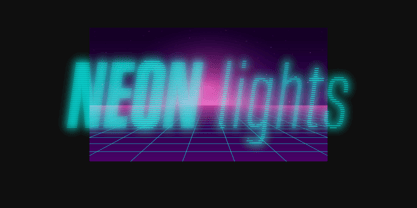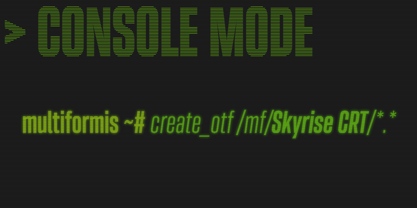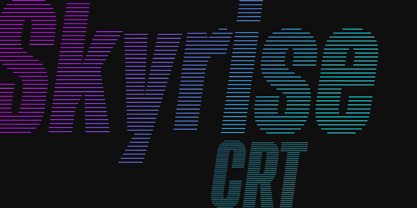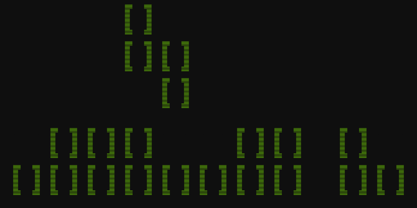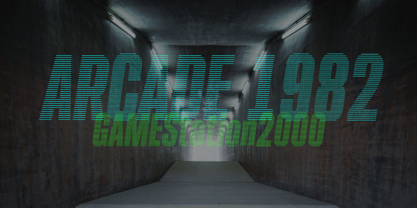
Skyrise CRT
La famille de polices Skyrise CRT a été conçue par Pedro Madeira et publiée par Multiformis. Skyrise CRT contient 16 styles et options de package familial. En savoir plus sur cette famille
Skyrise CRT was designed to be a retro-looking display family based on early CRT screens, which presented images and text with a scan-line pattern. The original Skyrise family was chosen as the base for its squarish and grotesque nature, traces that gained popularity about the same time as the CRT screens started to get massively introduced. Arcade game and old computer lovers who worked with the console or terminal will instantly recognize this style. The line pattern also assures lighter color and some transparency for various effects.